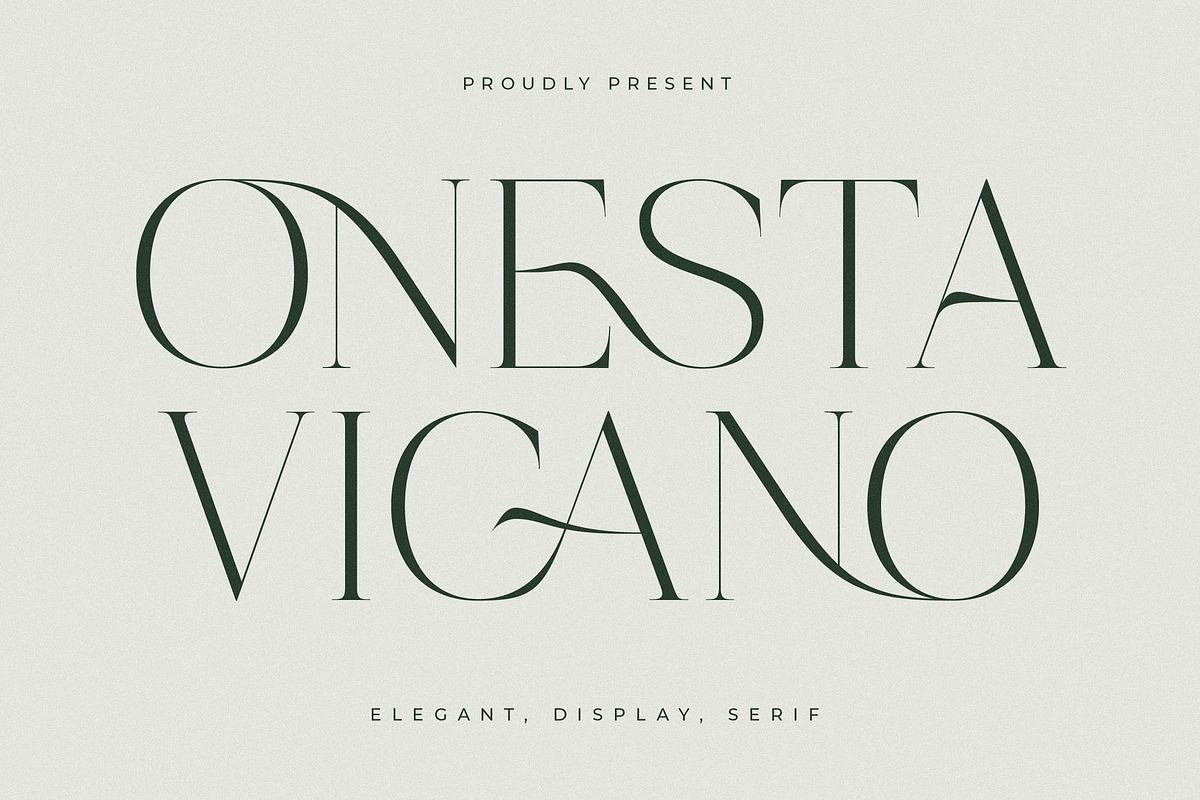
Onesta Vigano Elegant Display Serif Font Free Download is a high-end, luxurious serif typeface designed to bring a refined and graceful aesthetic to any creative project. With its sharp contrasts, sculpted serifs, and elegant curves, Onesta Vigano is ideal for fashion editorials, upscale branding, wedding invitations, boutique packaging, and elegant logo designs.
The font’s sophisticated structure and dramatic presence make it perfect for display purposes—turning headlines, titles, and branding statements into stunning focal points. Whether you're building a timeless brand identity or crafting stylish layouts, Onesta Vigano ensures your typography feels poised and prestigious.